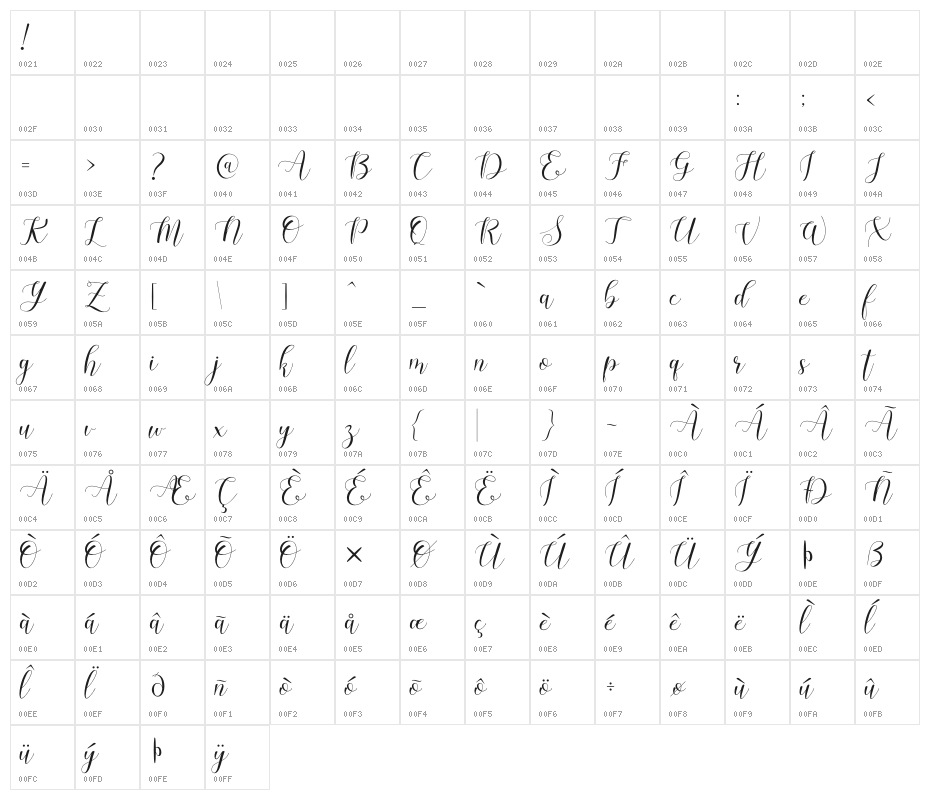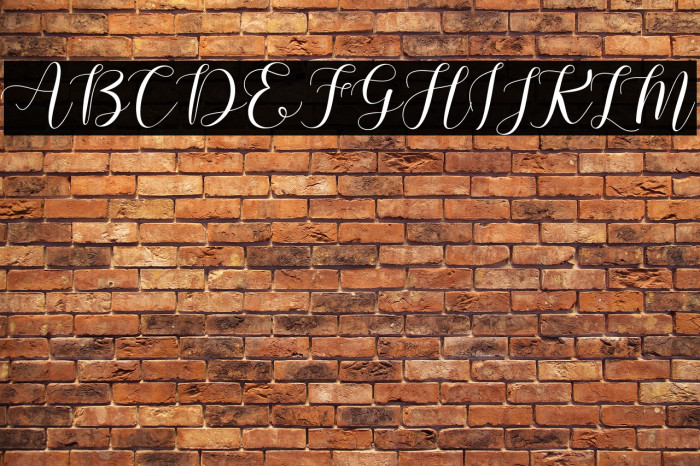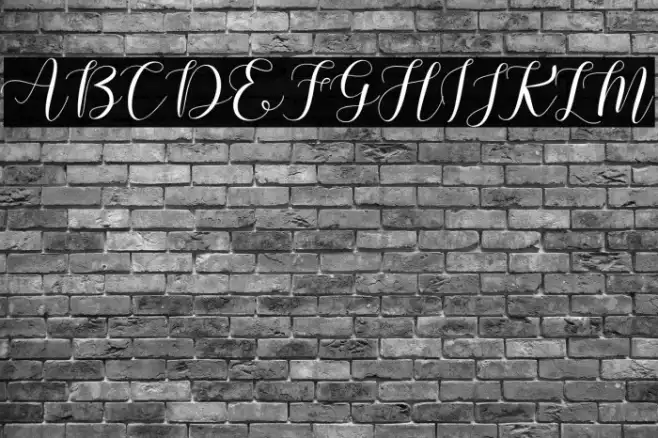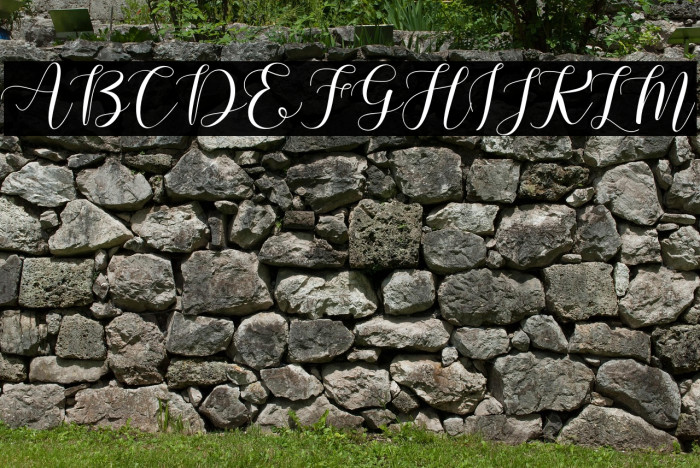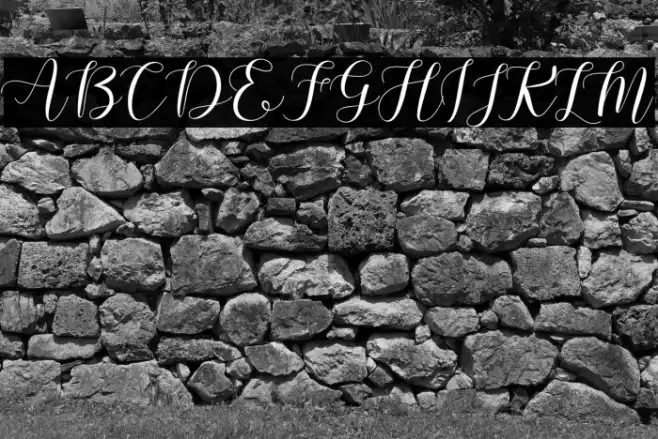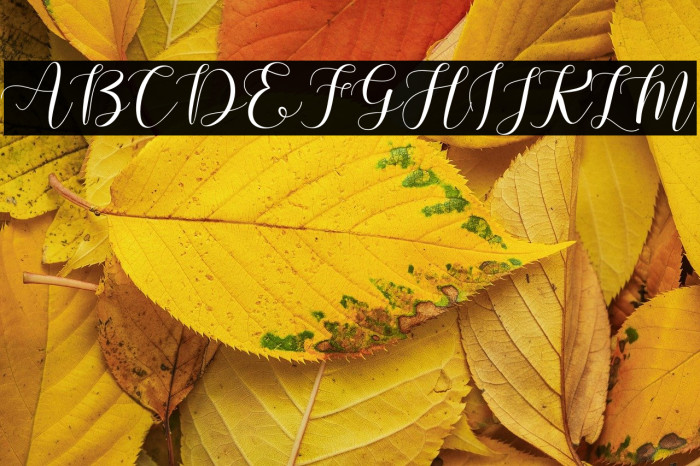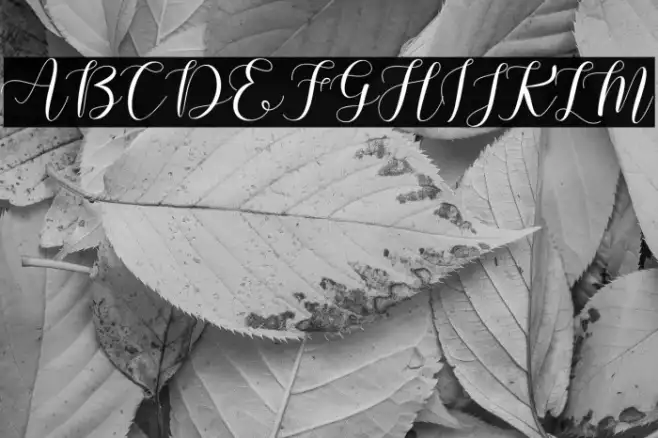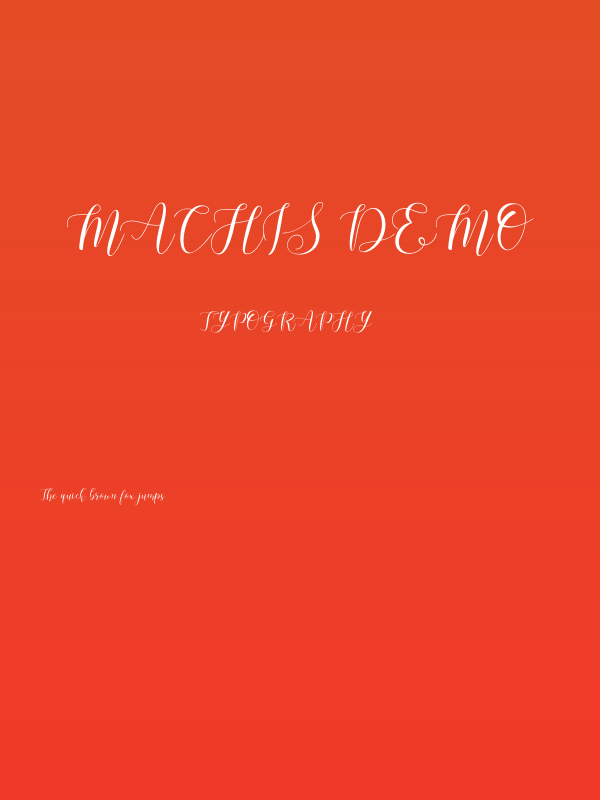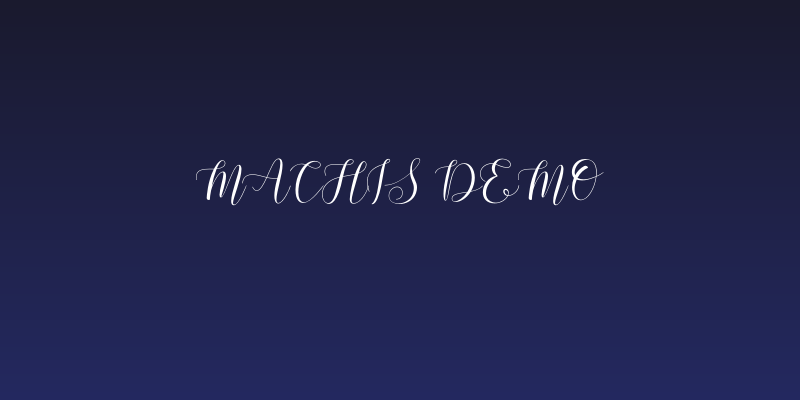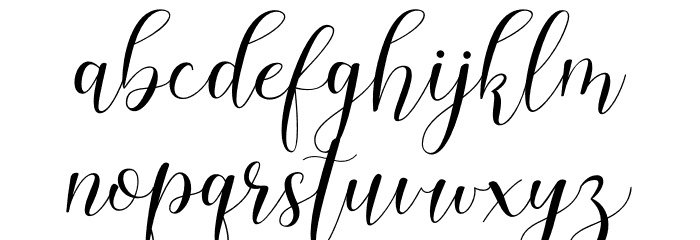
Machis Demo Font
This elegant script font features flowing, interconnected letters with a calligraphic style. The uppercase characters are adorned with graceful loops and swashes, giving them a sophisticated and artistic flair. The lowercase letters maintain a consistent flow, enhancing readability while preserving the decorative nature of the font. The overall design is reminiscent of traditional handwriting, with a modern twist that makes it suitable for a variety of creative applications. The font's delicate strokes and high contrast between thick and thin lines add to its charm, making it perfect for projects that require a touch of elegance and refinement.
Overall StyleElegant, Decorative
Use CaseLogos, Invitations, Decorative text
Proposed ProjectsIdeal for wedding invitations, greeting cards, branding, and elegant logo designs.